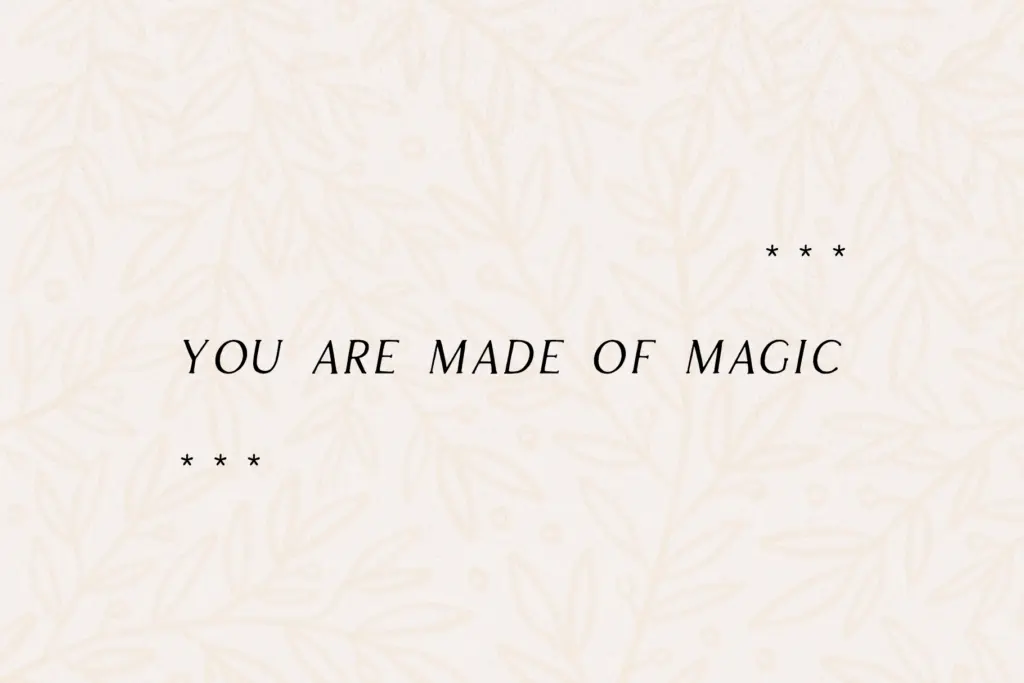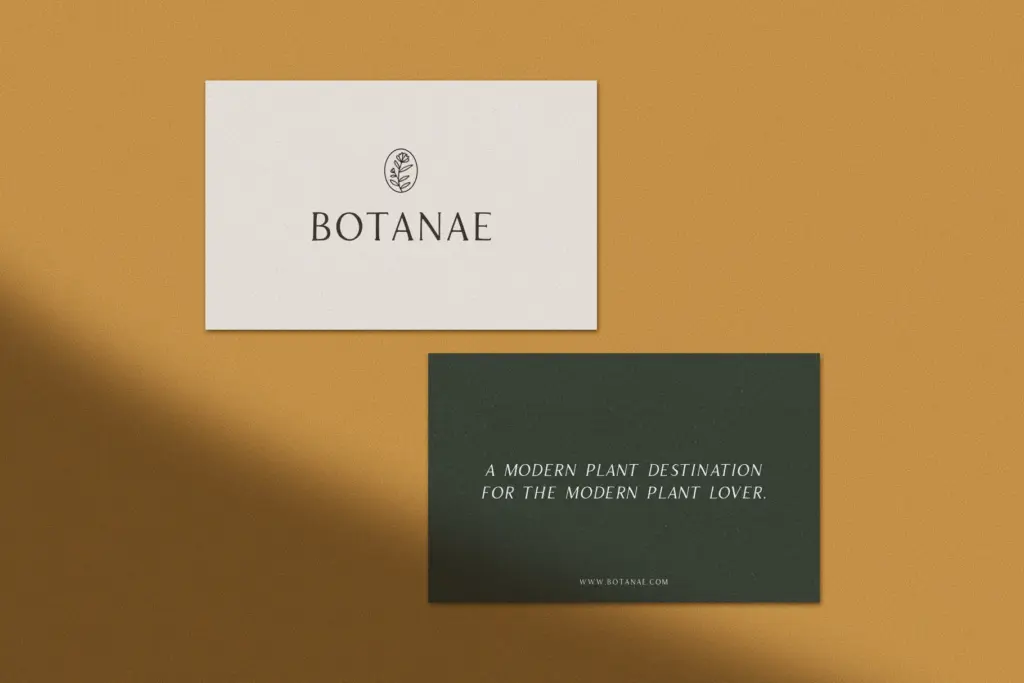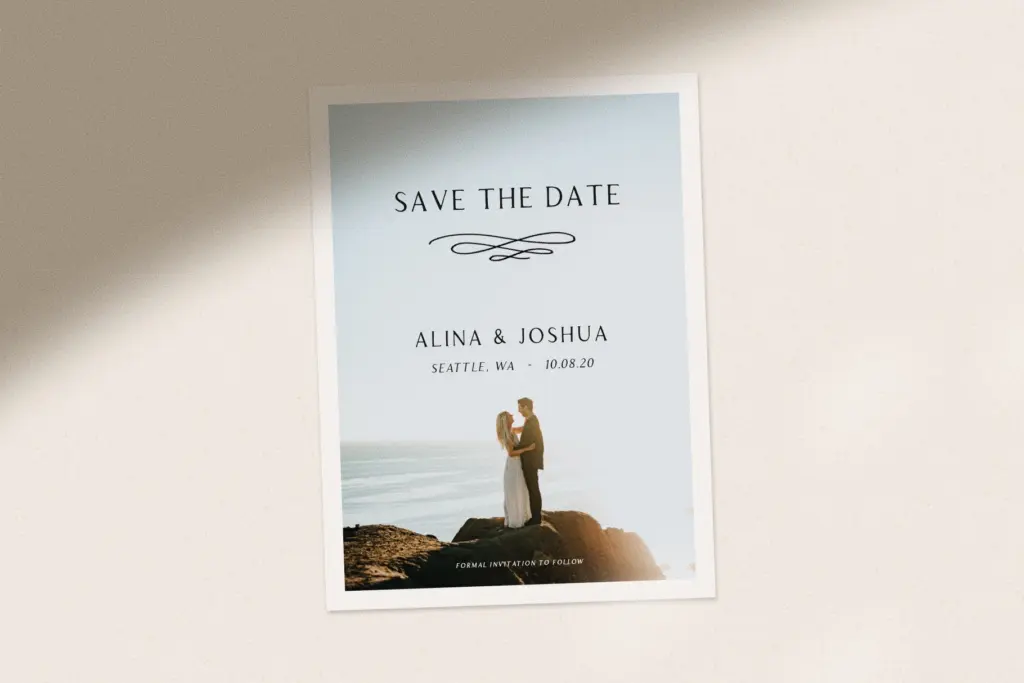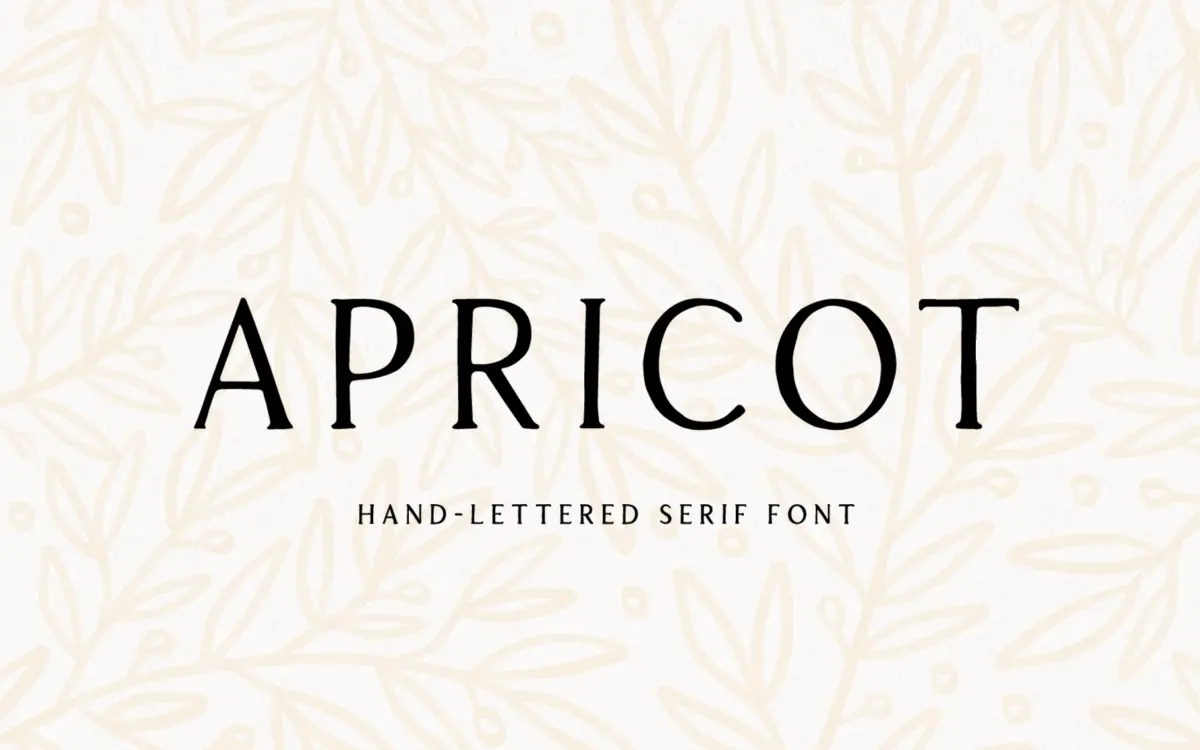
Apricot is a hand-lettered serif built entirely in capitals. The strokes are thin and slightly wavering, with small irregularities in the curves that read as drawn rather than digitised. It sits in that familiar space of contemporary handmade lettering fonts aimed at lifestyle branding: light, airy, a bit wobbly on purpose. The serifs are understated, more like small flicks at the terminals than structural serifs, which keeps the overall texture delicate rather than formal.
The imperfection is consistent across the four styles rather than random, so the face reads as a considered stylistic choice, not a scan artifact. That said, because every letter is a capital, the design leans hard on spacing and scale to create hierarchy. There’s no lowercase to soften long runs of text, so the personality comes entirely from the drawing quality of the caps themselves.
Apricot ships as Regular, Italic, Bold and Bold Italic, all uppercase only, with full numbers and punctuation. That’s a reasonable spread for a font meant to sit in headlines, short lines, or decorative text rather than paragraphs. The bold weight thickens the strokes without losing the hand-drawn wobble, which is useful when you need contrast within a single design without switching typefaces. The italic leans the letterforms rather than reworking them, which keeps the family visually consistent but means the italic doesn’t introduce much new character.
Punctuation and numerals are included, which matters for a font pitched at invitations and quotes — you’ll actually be able to set a date or a price without hunting for a substitute. Language support is limited to English characters, so anyone setting text with accented characters will need to look elsewhere or request additions from the designer directly.
Apricot is built for short, expressive text: a logotype, a monogram-adjacent wordmark, a line on a wedding invitation, a pull quote on a blog header. The uppercase-only structure and airy stroke weight make it a poor choice for anything resembling body copy — at paragraph lengths the lack of a lowercase and the intentional irregularity would fight against readability. Used as intended, in short bursts at generous size, the handmade quality reads as warm and personal rather than messy.
It fits comfortably in the same territory as farmhouse-style branding, beachy or coastal packaging, and blog and social graphics aimed at a soft, feminine aesthetic. Business cards and presentation titles work well too, provided the rest of the layout carries a plainer companion face for actual reading text. Because the four styles are limited to caps, designers should plan compositions around all-capital lines rather than expecting Apricot to behave like a full-featured text serif. Treat it as a display accent, not a workhorse, and it does its job cleanly.
- The hand-drawn wobble is consistent across weights rather than looking accidental
- Bold weight gives usable contrast without abandoning the handmade texture
- Numbers and punctuation are included, useful for invitations and short editorial lines
- All-caps only means it can't function as a text face for anything beyond a line or two
- English-only character support limits use on multilingual projects
Apricot is a competent hand-drawn display serif that does one job — short, decorative capital lines — reasonably well. It won't stretch to body text or multilingual projects, but for logos, invitations and blog headers with a soft, handmade feel, it delivers what it promises.